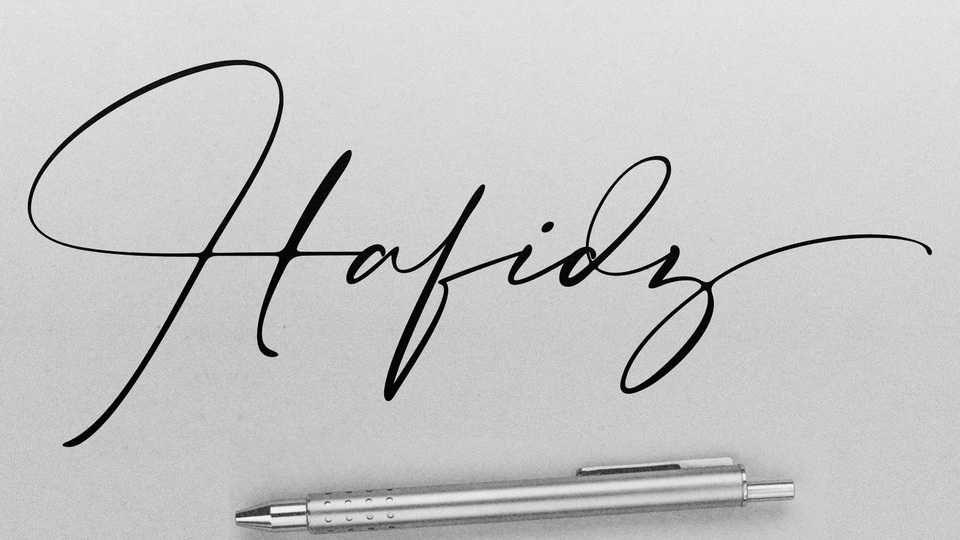
Download Hafidz font, a high-quality, cool, and luxury signature font. Hafidz will help you create stunning signature logos for you, your company, and your projects.